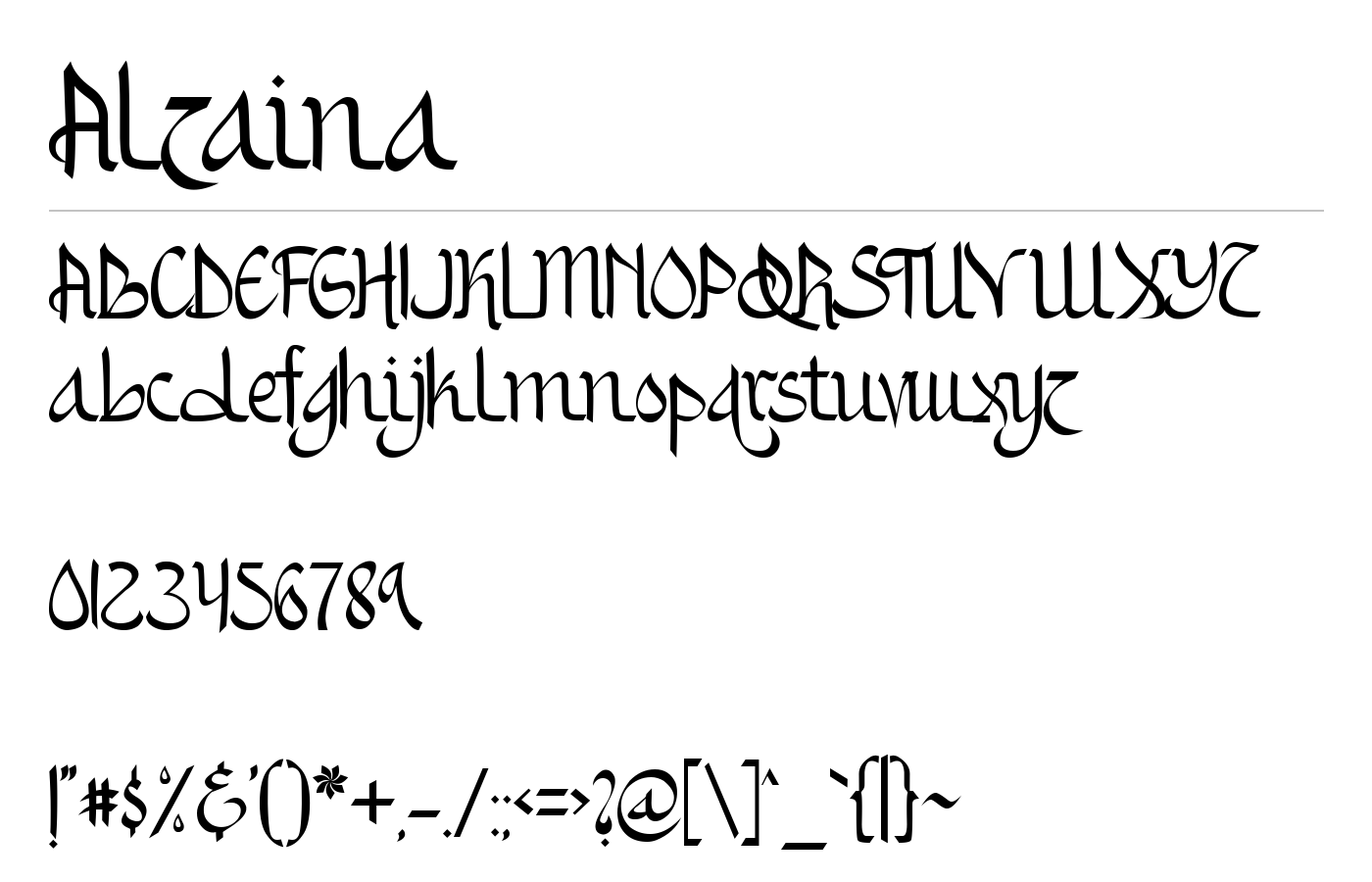
Alzaina is a distinctive, narrow serif font with a whimsical, hand-crafted feel marked by its sharp, angular strokes and irregular shapes. Its medium contrast and artistic letterforms evoke a vintage or fantasy style, making it perfect for creative projects, themed branding, and eye-catching headlines that want to convey uniqueness and charm. Ideal for packaging, posters, and decorative use, Alzaina stands out with its elegant yet playful personality.
Alzaina Font
About Alzaina Font
| Font family | Alzaina Font |
| Designer | zamjump. 2021. | Zamzami Ahmad | |